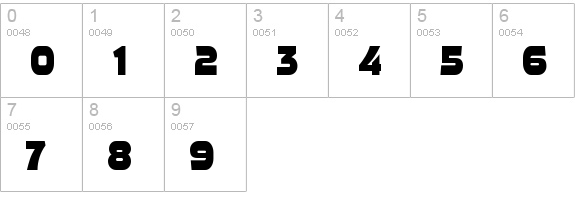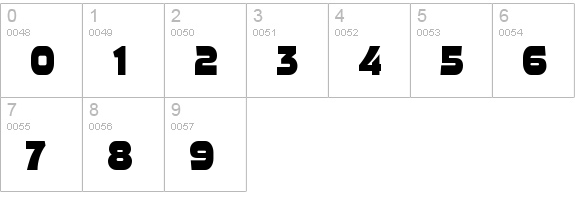
Meposa Font Details
Meposa font is a modern and elegant typeface that combines classic elements with a contemporary twist. Its sleek lines and sharp edges give it a sophisticated look that is perfect for a wide range of design projects. Whether you're creating a logo, website, or print materials, Meposa font will add a touch of style and professionalism to your work. And the best part? Meposa font is completely free to download at FontsMarket.com. That's right, you can get your hands on this stunning font without spending a dime. So why wait? Download Meposa font today and take your designs to the next level with this versatile and eye-catching typeface.